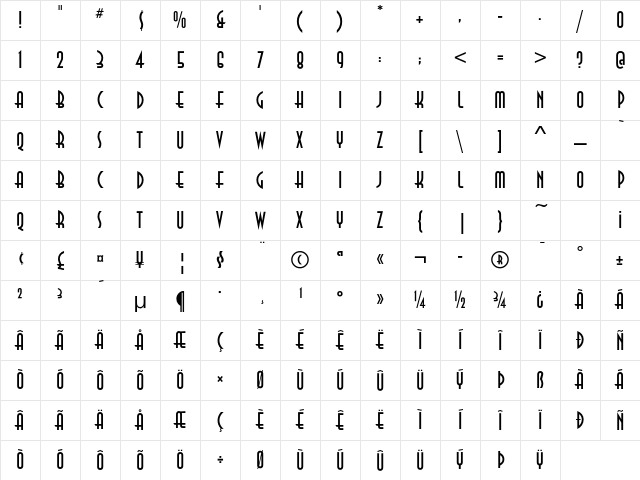
Anna ITC Regular
Foundry: International Typeface Corporation,
Design Context for Anna ITC
Anna ITC is a composed and adaptable typeface that performs quietly and consistently across a wide range of design contexts.
Who designed the Anna ITC Regular font?